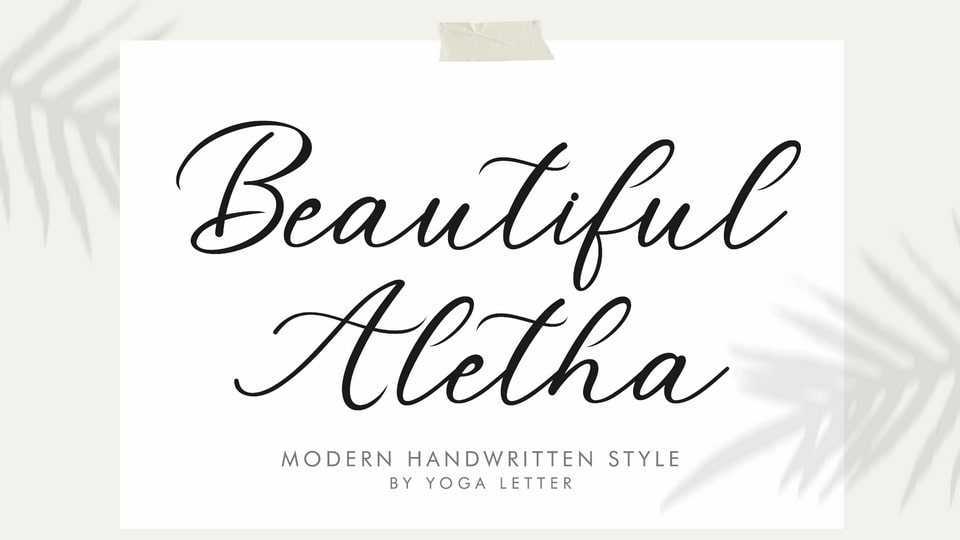
Download Beautiful Aletha font, a beautiful and elegant handwritten typeface. It’s perfect for weddings, business branding, invitations, Christmas, social media, print, banners, posters, branding, stickers, and more.